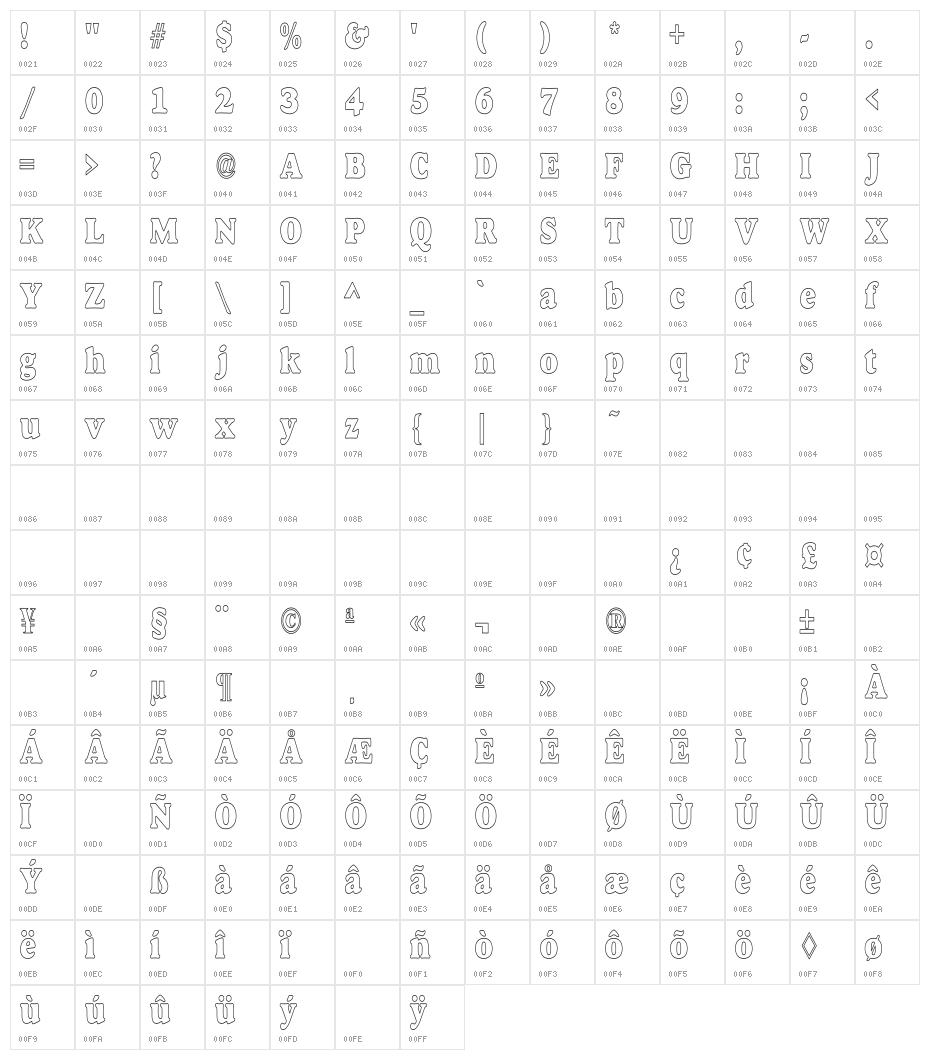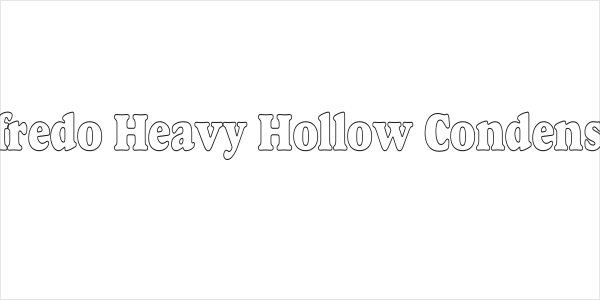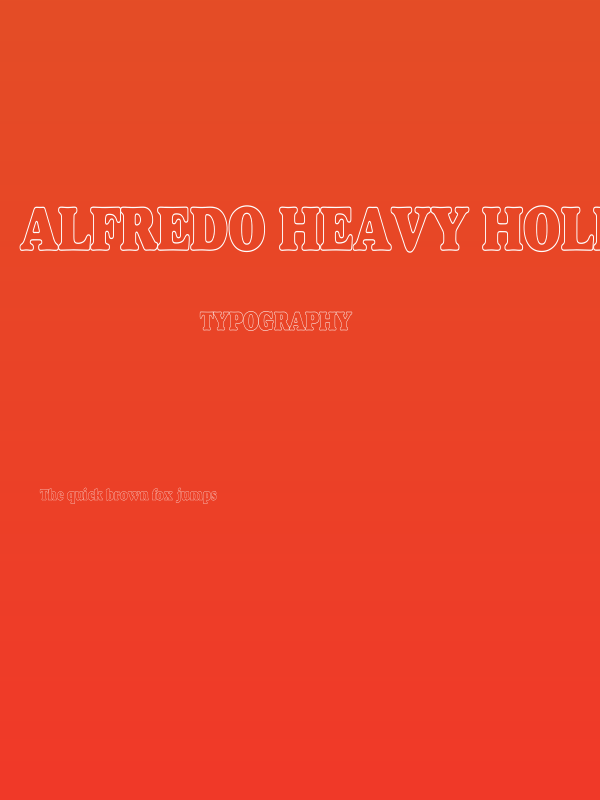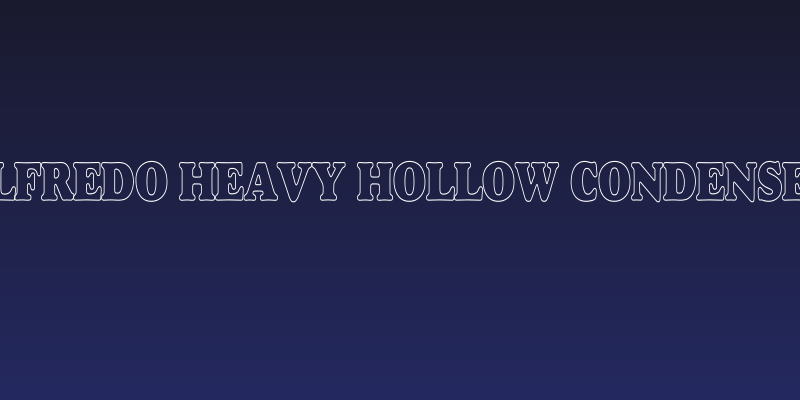
Alfredo Heavy Hollow Condensed Font
Alfredo Heavy Hollow Condensed Description
This font features a bold, hollow design with a condensed structure, making it stand out with its unique outline style. The uppercase and lowercase letters maintain a consistent width, providing a uniform appearance across all characters. The numerals and special characters are designed to match the boldness and hollow nature of the letters, ensuring a cohesive look. The font's distinct outline gives it a playful yet strong presence, suitable for eye-catching designs. Its condensed form allows for efficient use of space without sacrificing readability.
| Proposed Projects | Ideal for posters, headlines, logos, and any design requiring a strong visual impact. |